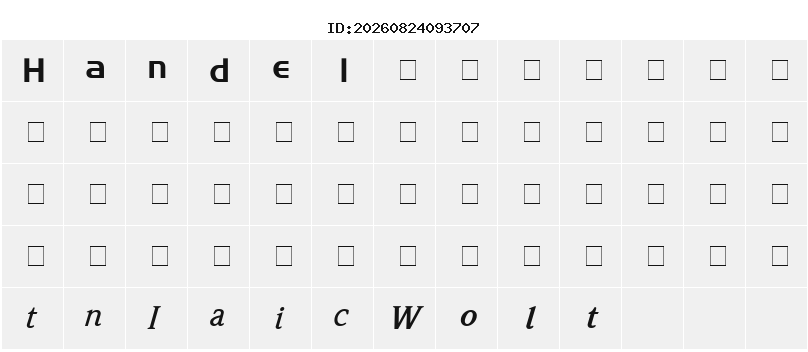
Sample-ESF2 Preview
• Font Name: Sample-ESF2
• Font ID: FontMonger:Sample ESF2 Normal
• Full Font Name: Sample ESF2 Normal
• PostScript Name: SampleESF2Normal
• Character Count: 50
About Sample-ESF2.ttf
Sample-ESF2.ttf is a modern, elegant sans-serif font designed for ultimate readability and visual harmony. Perfect for branding, headlines, web design, and print materials.